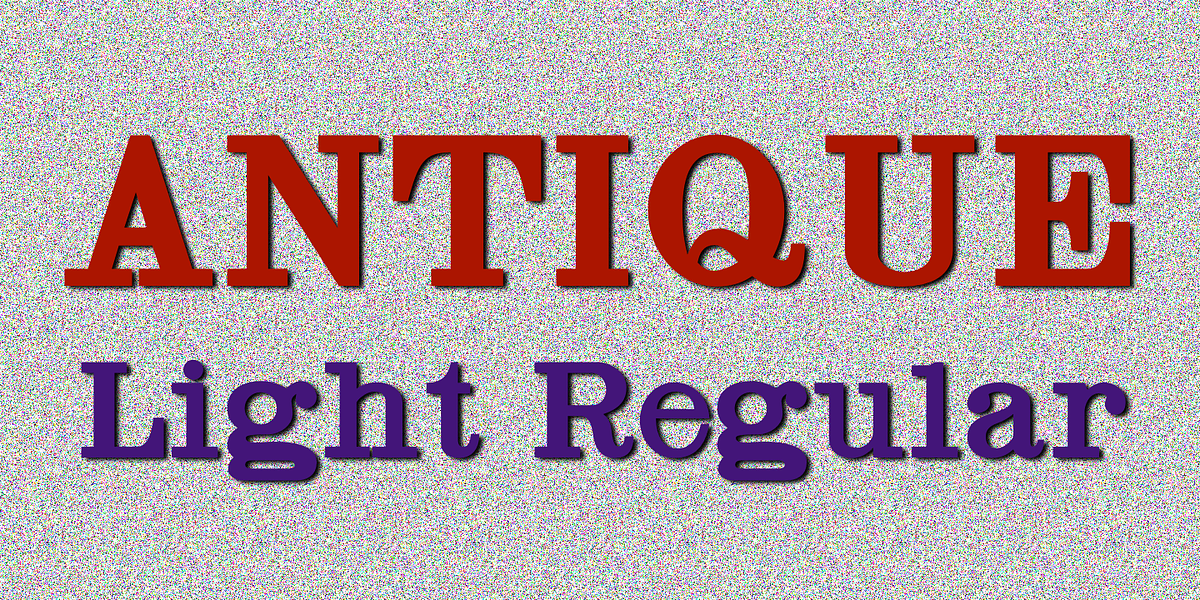
Antique Light
This font is a quintessential example of a grotesque slab serif, a style popular in the 19th century. Its bold strokes and ball terminals give it a strong presence, making it suitable for both text and display applications like headlines, posters, and branding.